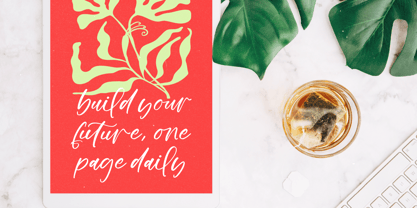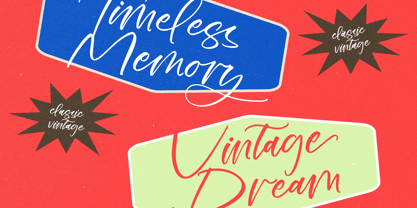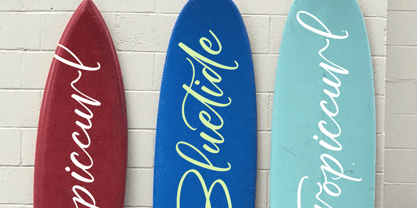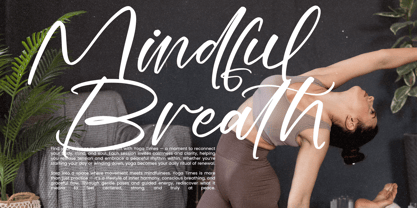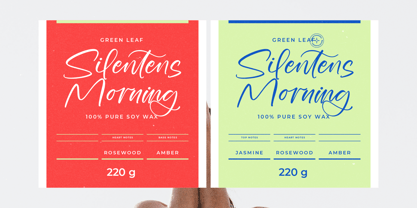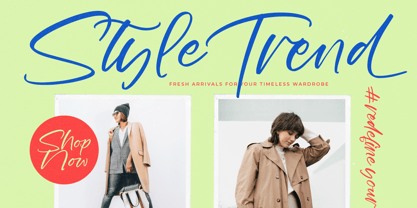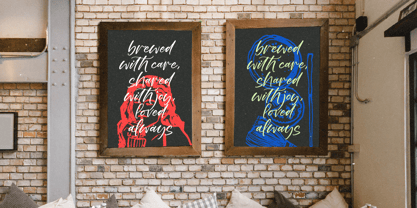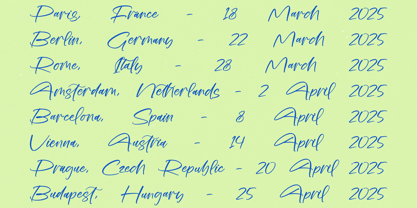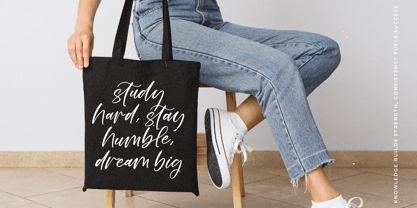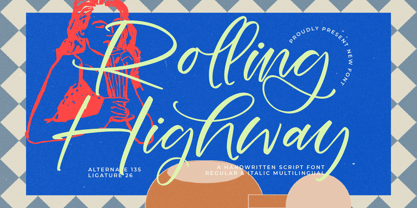
Rolling Highway
by Stylishtype Studio
The Rolling Highway Font Family was designed by Heru Utama Putra and published by Stylishtype Studio. Rolling Highway contains 2 styles and family package options. More about this family
Rolling Highway - Handwritten Script Font , from Stylishtype , Suitable for any projects such as: logos, branding projects, homeware designs, product packaging, mugs, quotes, posters, shopping bags, t-shirts, book covers, name card, invitation cards, greeting cards, label, photography, watermark, special events, and all your other luxury and beautiful projects that need a Luxury Script taste.